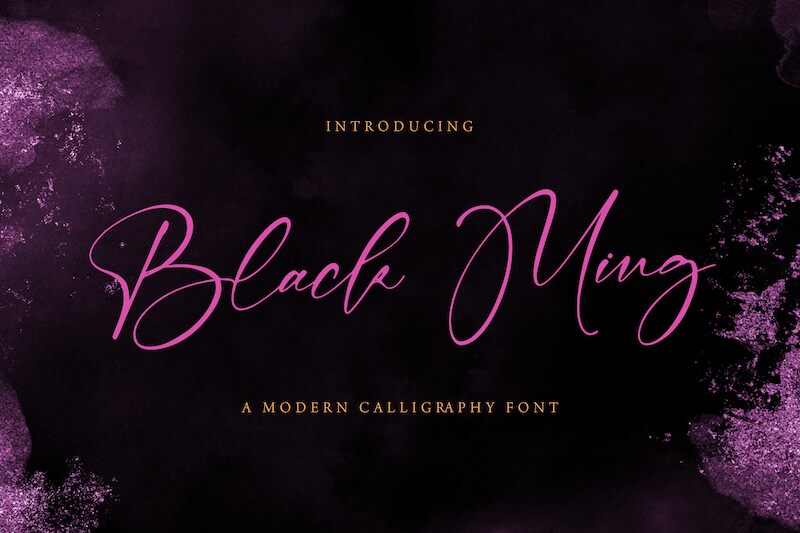
Black Ming, a masterpiece crafted by StringLabs Creative Studio, stands out as an exemplar of calligraphy in the world of typography. Its extra-light weight weaves a delicate dance of elegance and airiness, providing a sophisticated touch to any visual composition. This font's distinctive style-imbued with fluidity and grace-captures the essence of traditional calligraphy while embodying modern sensibility.
The refined curves and fine lines of Black Ming offer an aesthetic charm that is versatile enough for diverse creative projects. Whether it's for wedding invitations, branding, or editorial design, this font infuses a sense of artistry and refinement. Its suitability spans across print materials to digital displays, ensuring that Black Ming leaves an impression of subtle luxury and timeless beauty wherever it is applied.